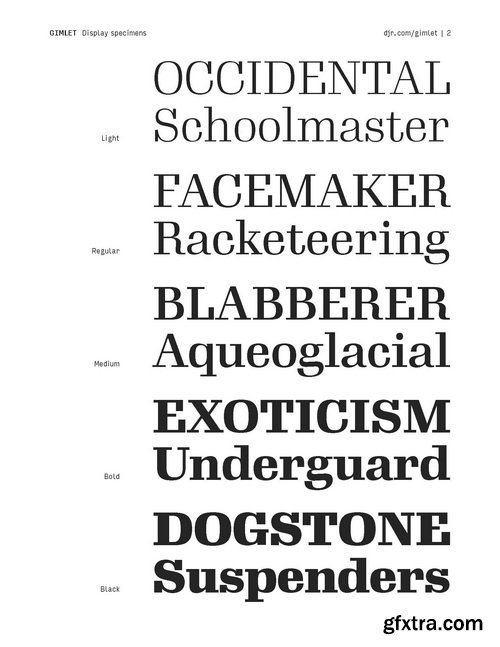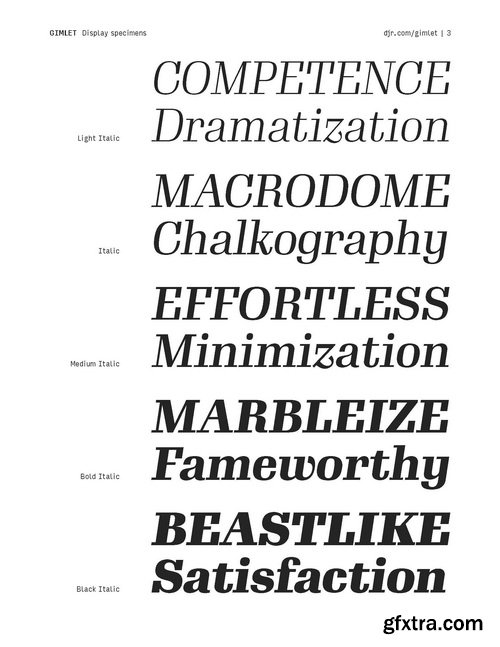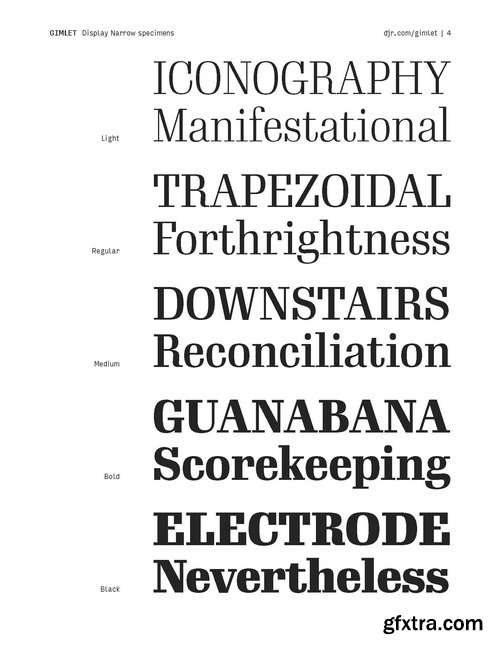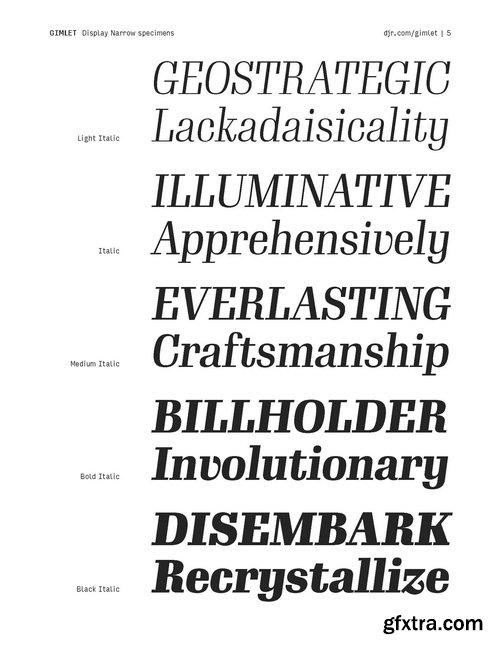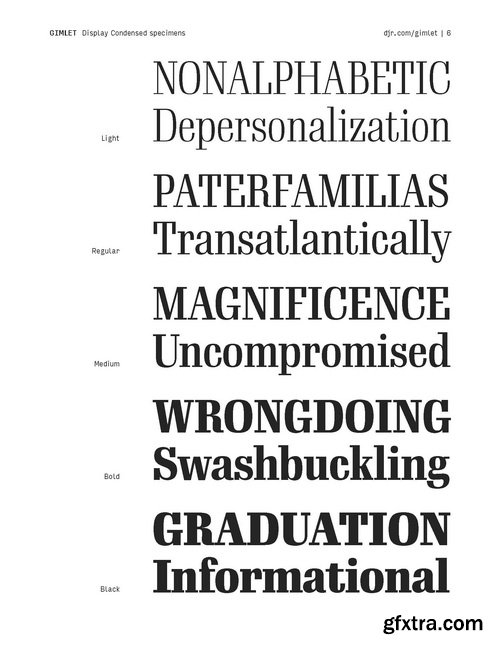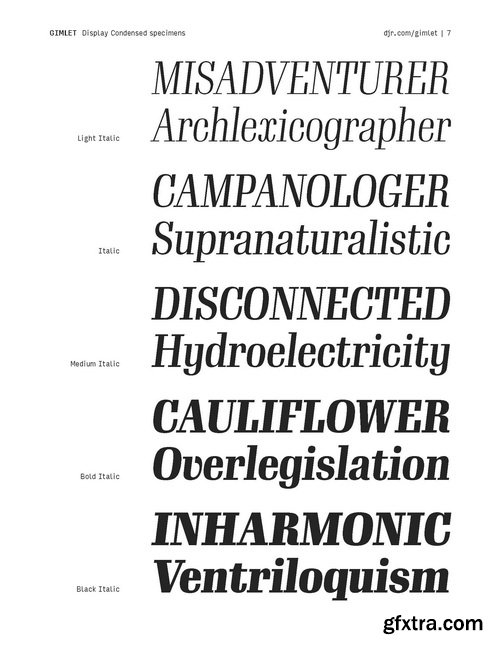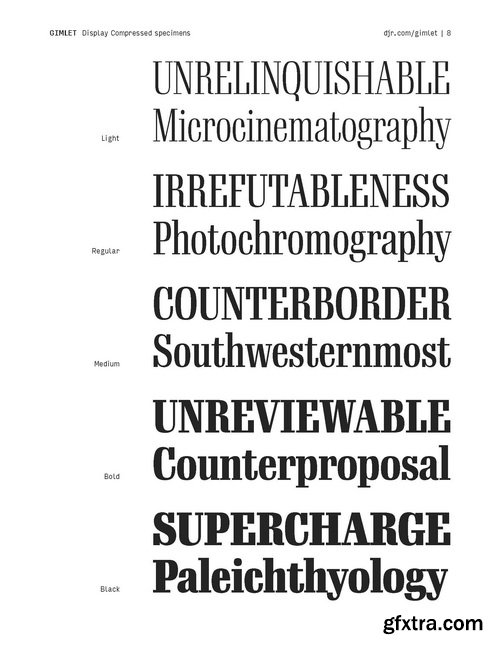
Gimlet Superfamily 112 Styles
- Gimlet draws its inspiration from Georg Trump’s 1938 typeface, Schadow. At the behest of Nick Sherman, I reimagined the oddball serif as an energetic contemporary workhorse, complete with three optical sizes and a flexible set of widths tailored for responsive layouts. A multifaceted series that speaks with a singular voice, Gimlet is a rare find: a typeface that is as funky as it is functional.